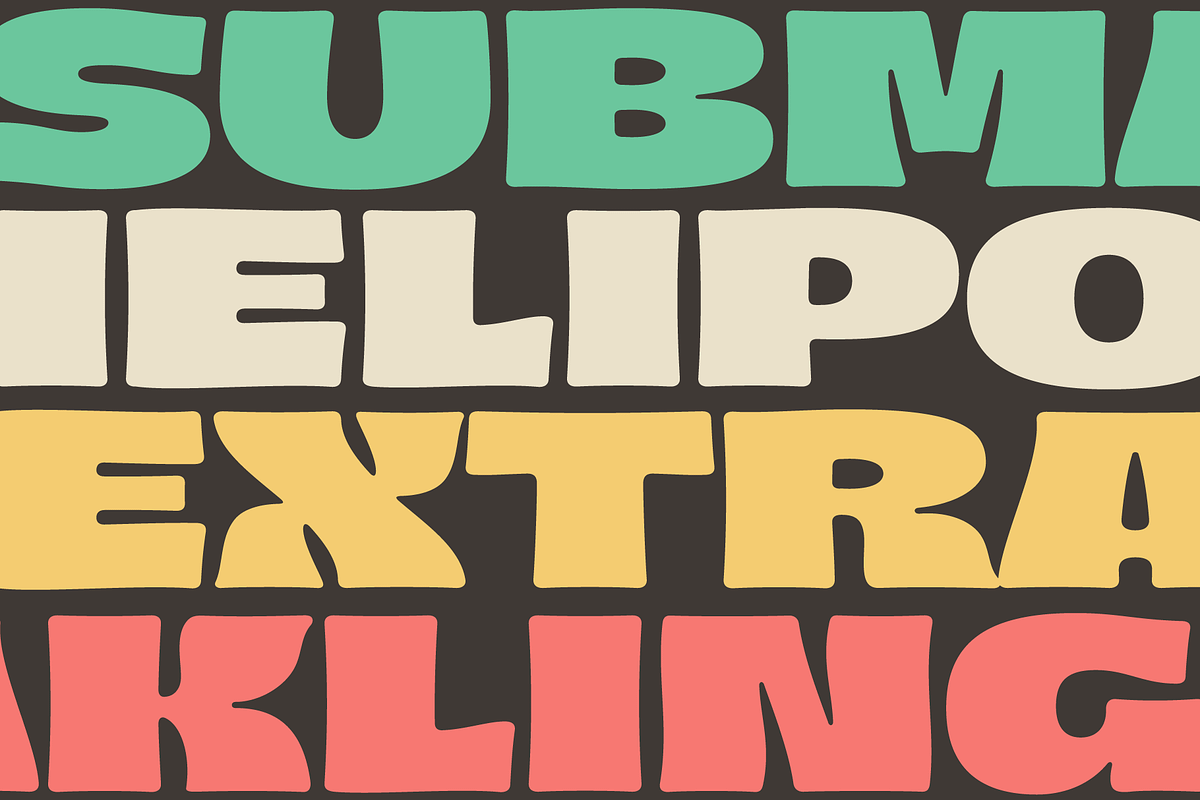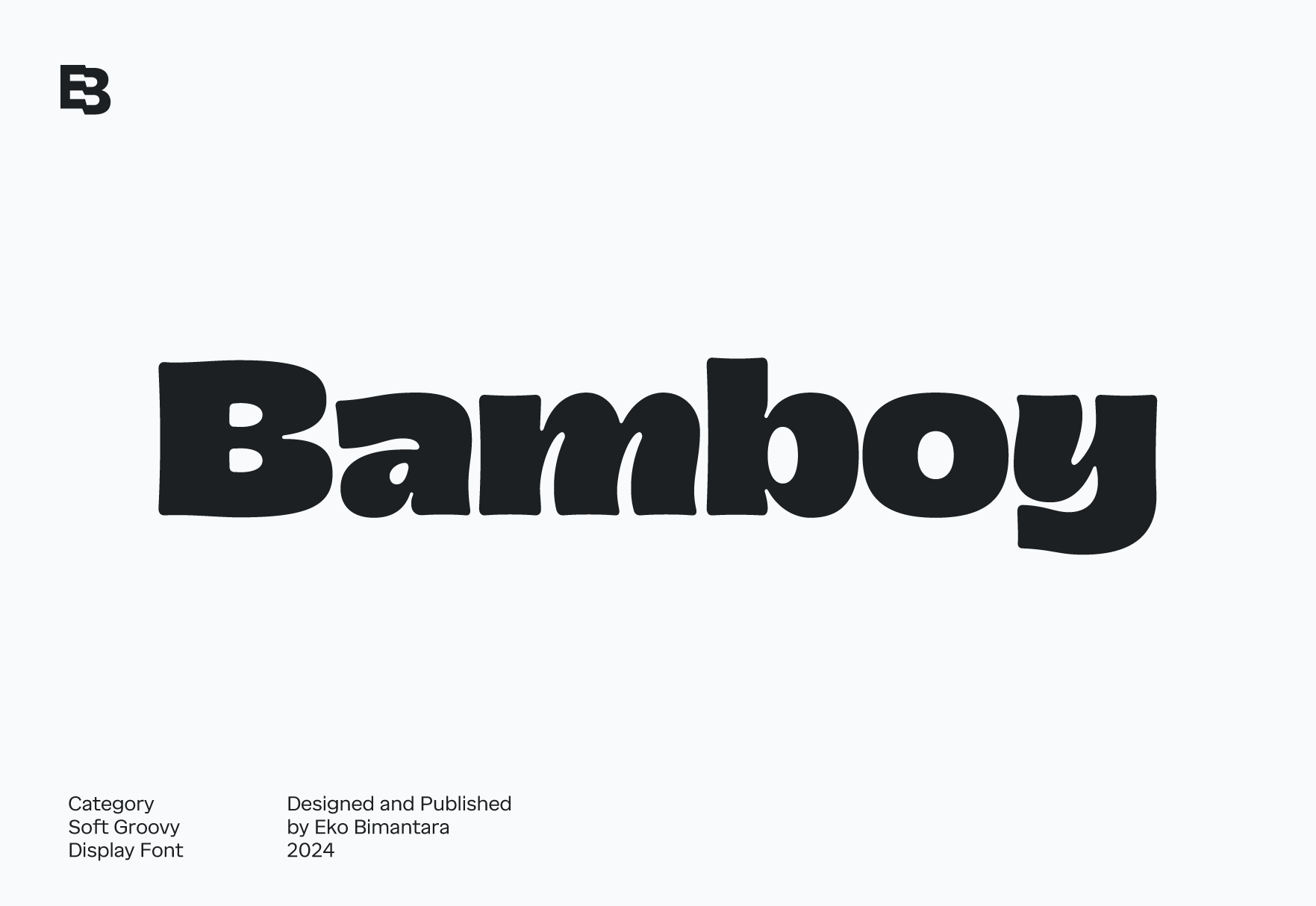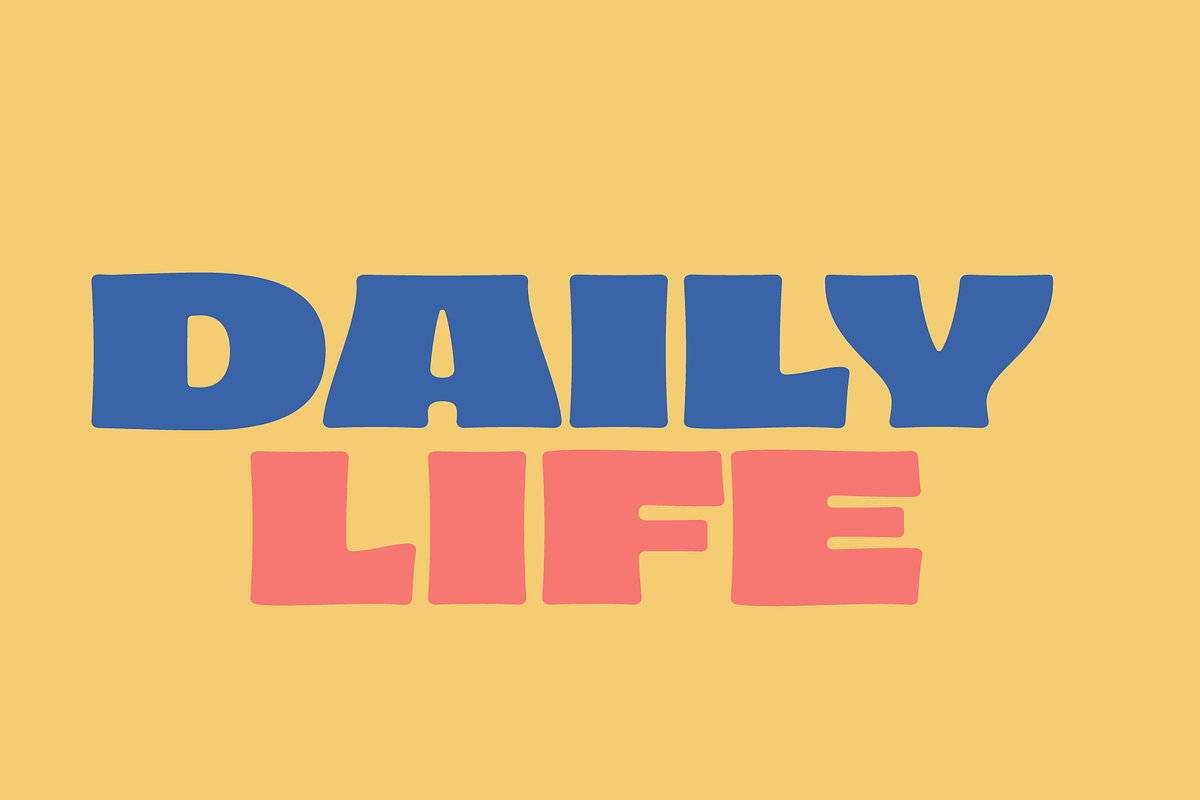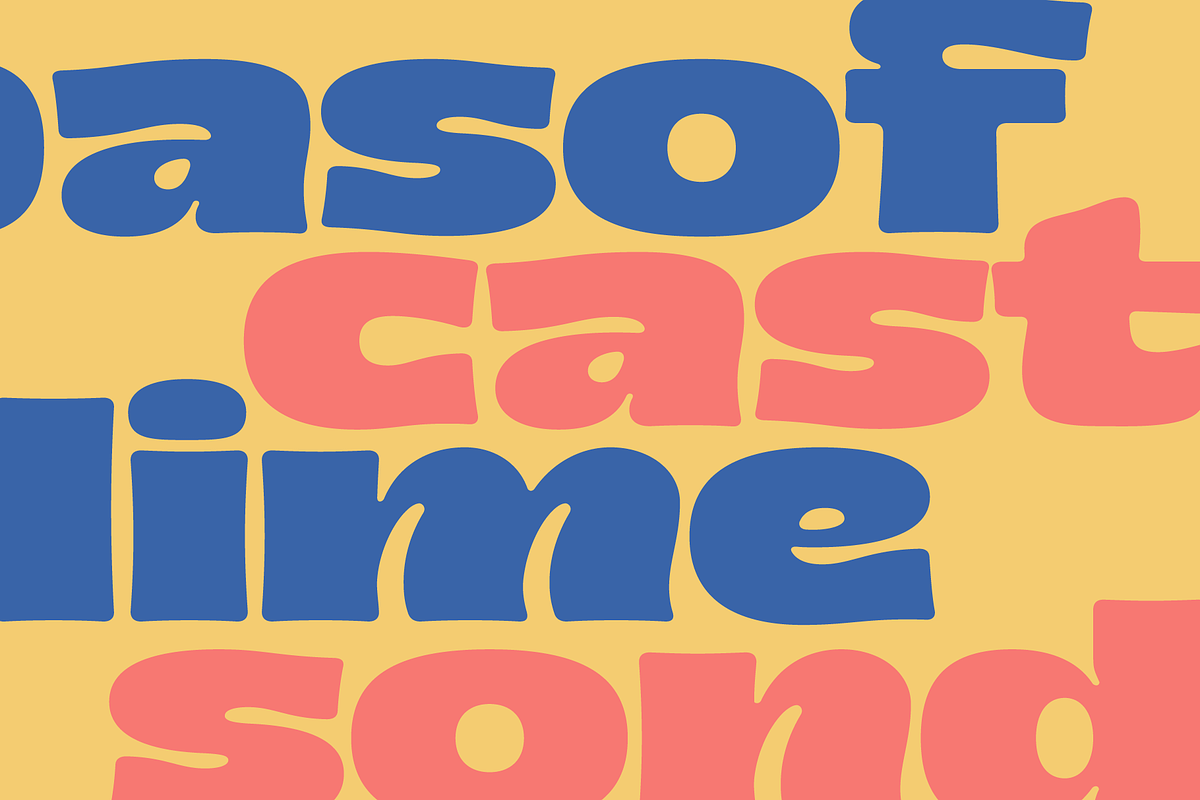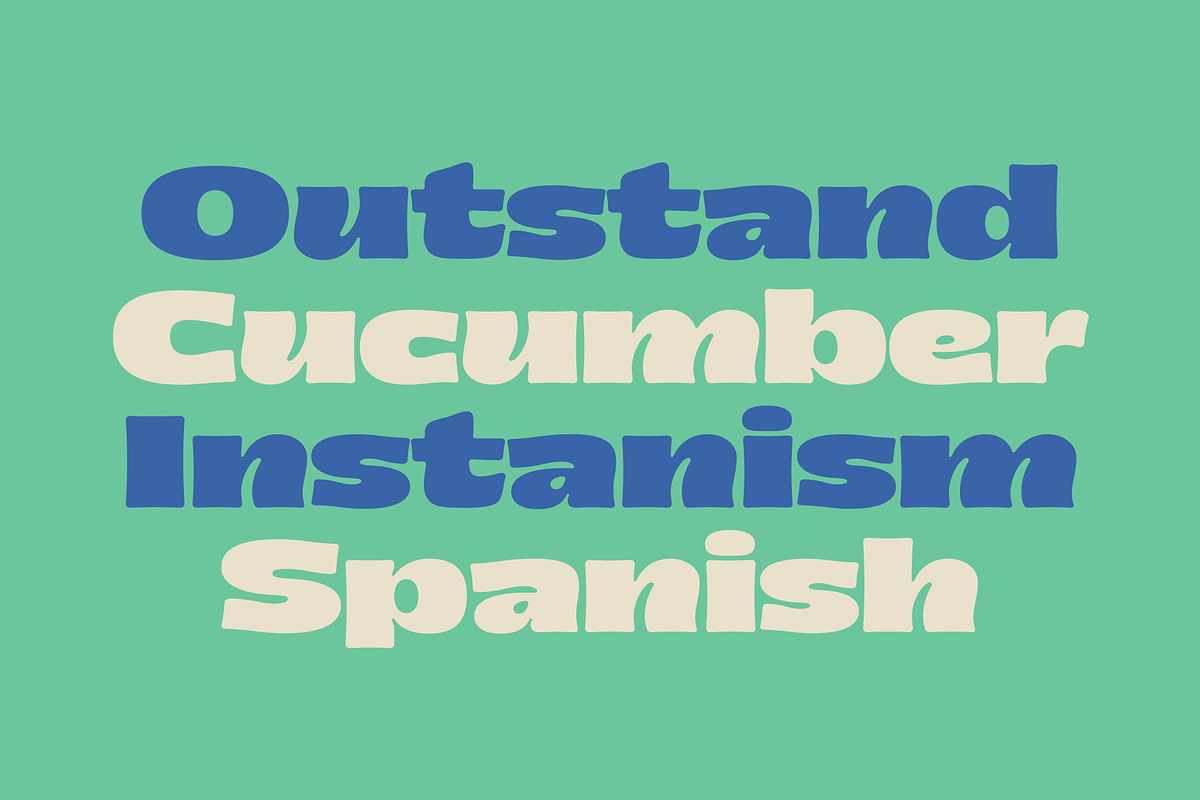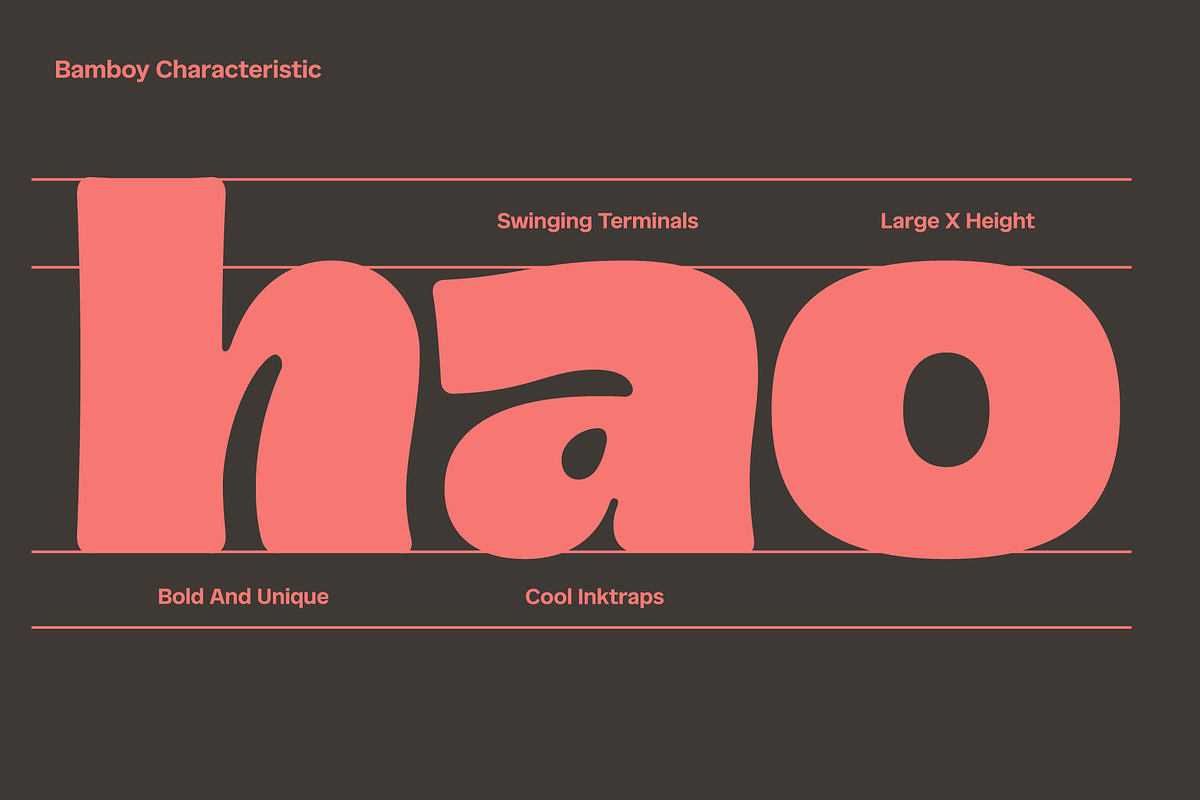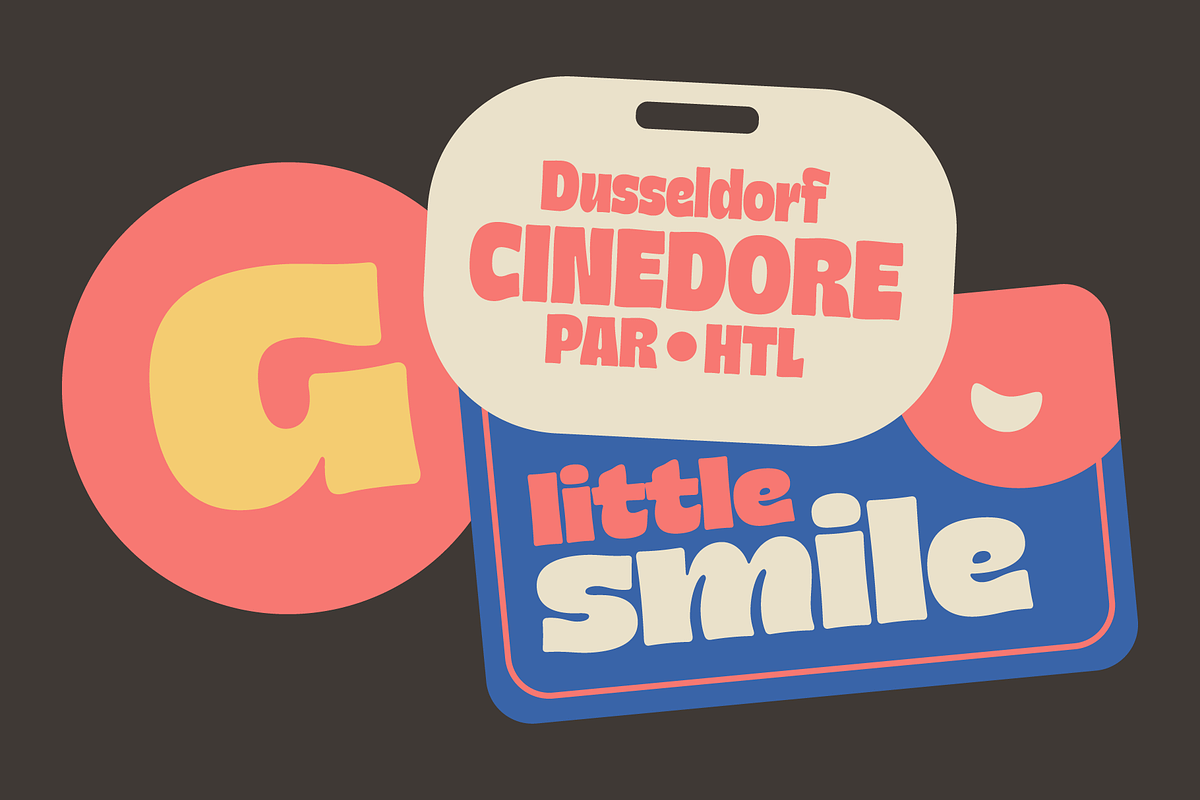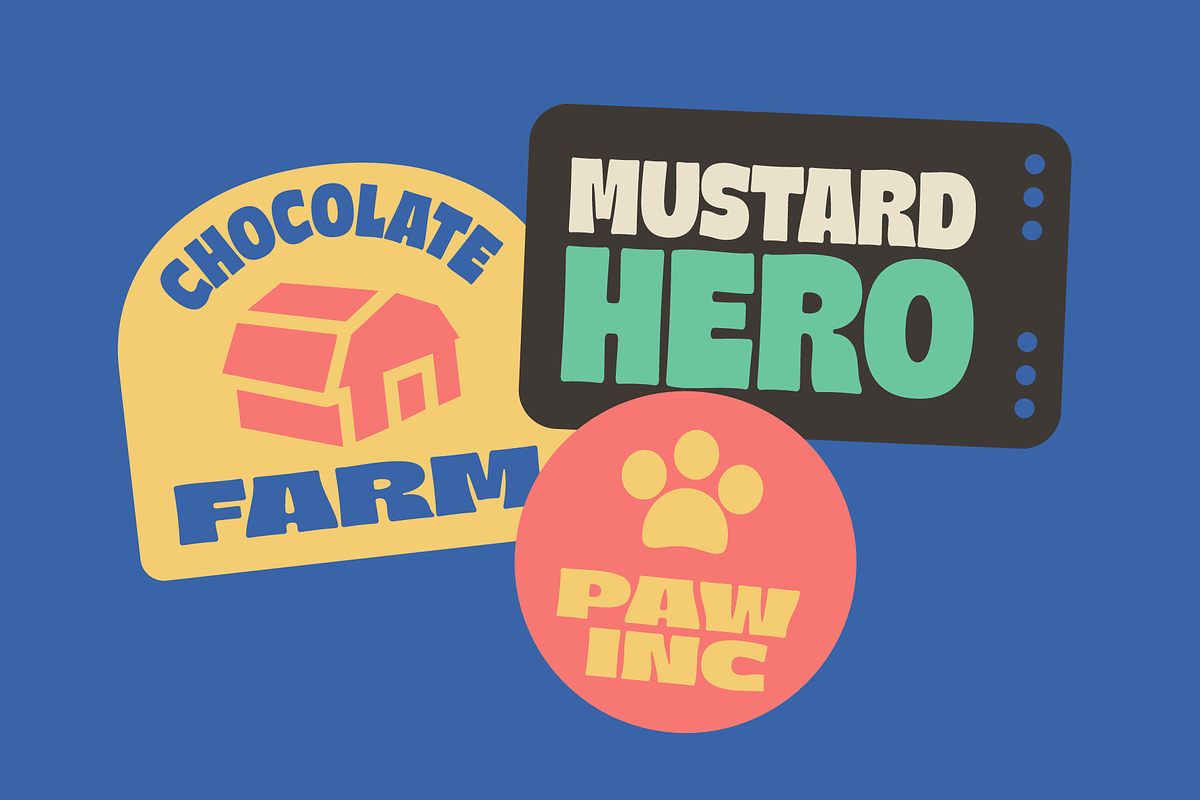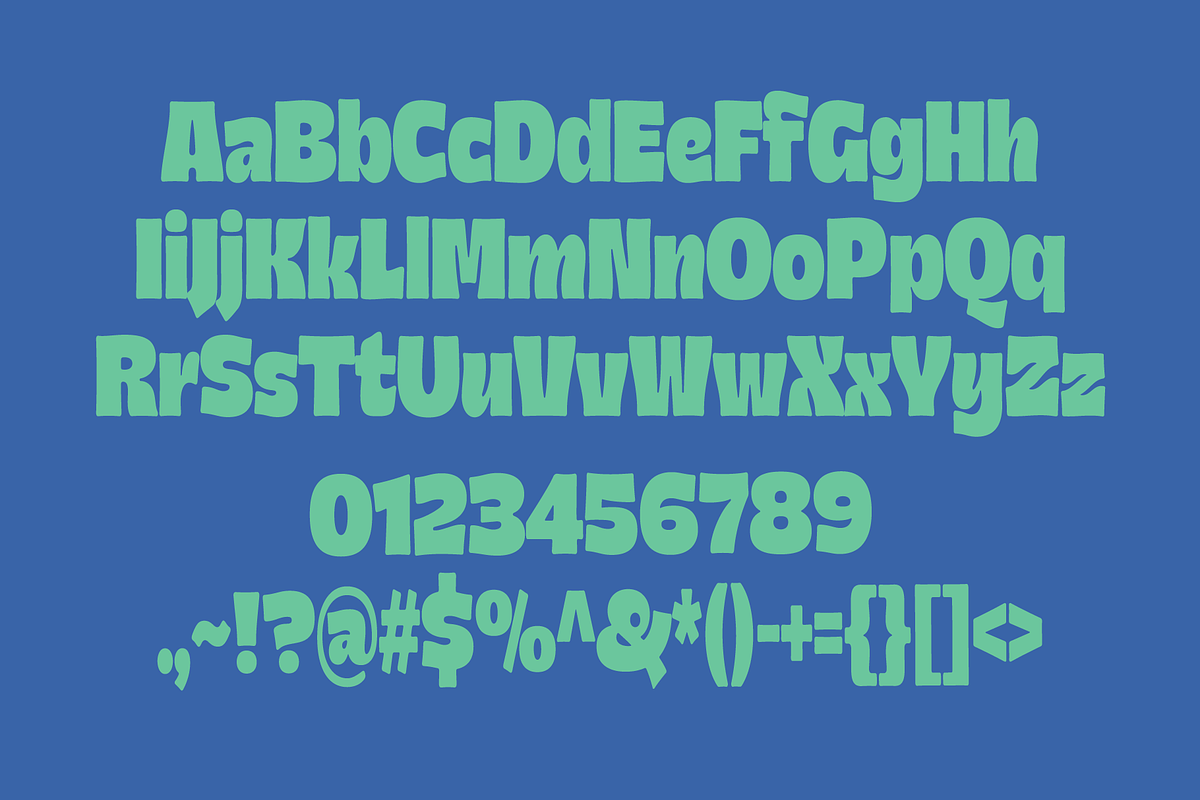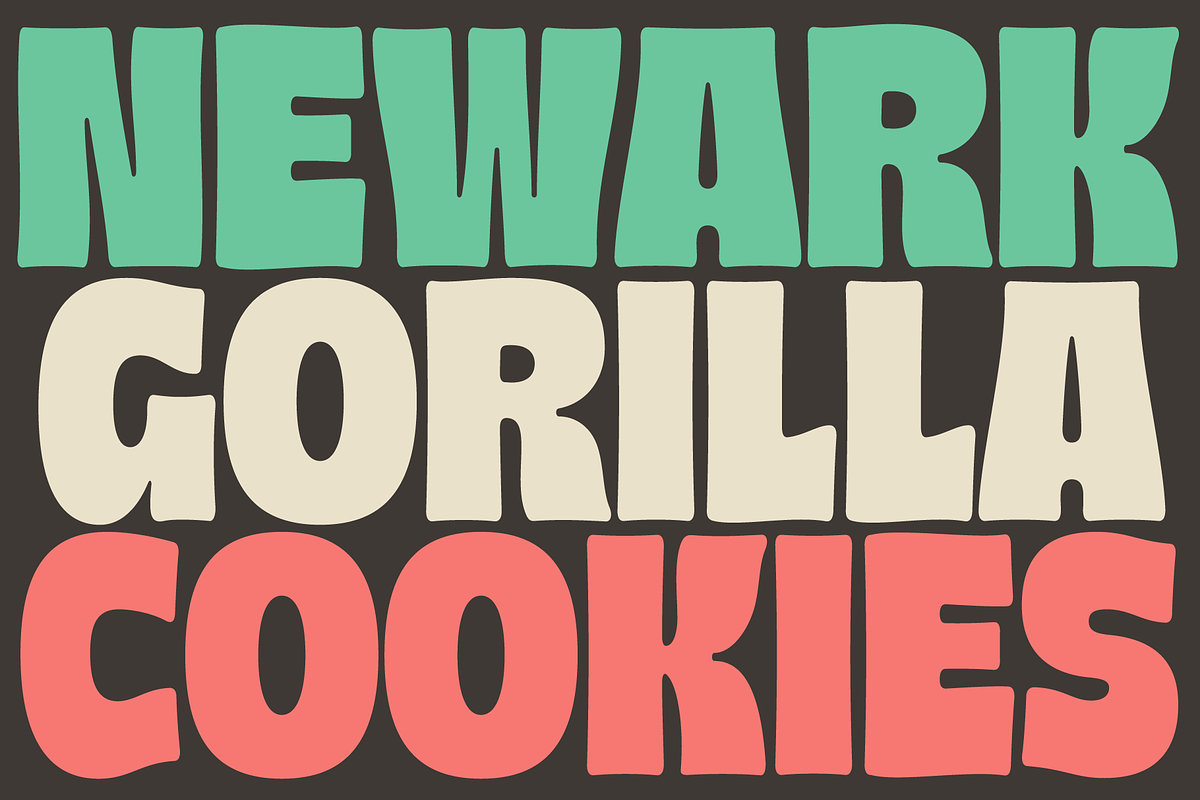
Bamboy; Soft Groovy Display Font
Bamboy is a soft groovy display font family characterized by its fun, retro vibe, with variable width and unique swinging terminals. Bold and eye-catching, it features cool inktraps, making it perfect for designs with a 70s or retro theme. Bamboy is ideal for branding, food packaging, product designs, and fun projects. Whether used for large displays, titles, headers, websites, or brand identities, it brings a playful yet bold touch to any creative or graphic design purpose.